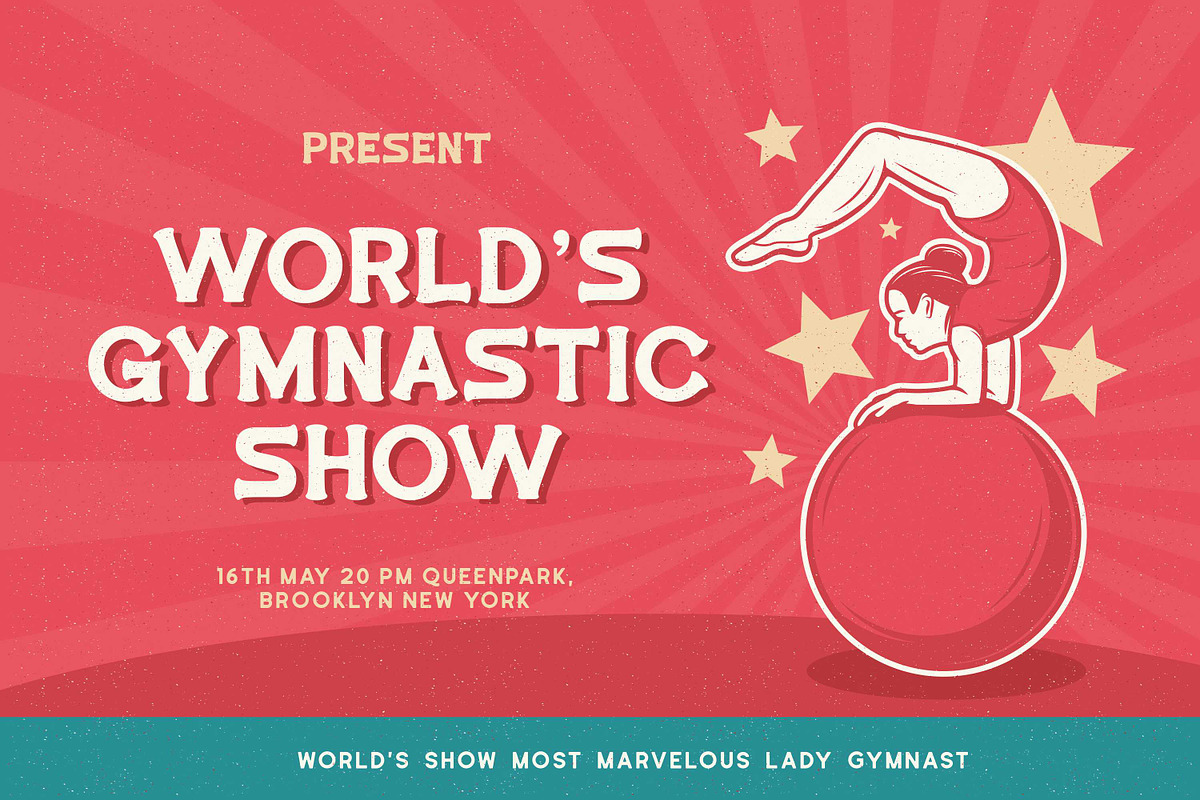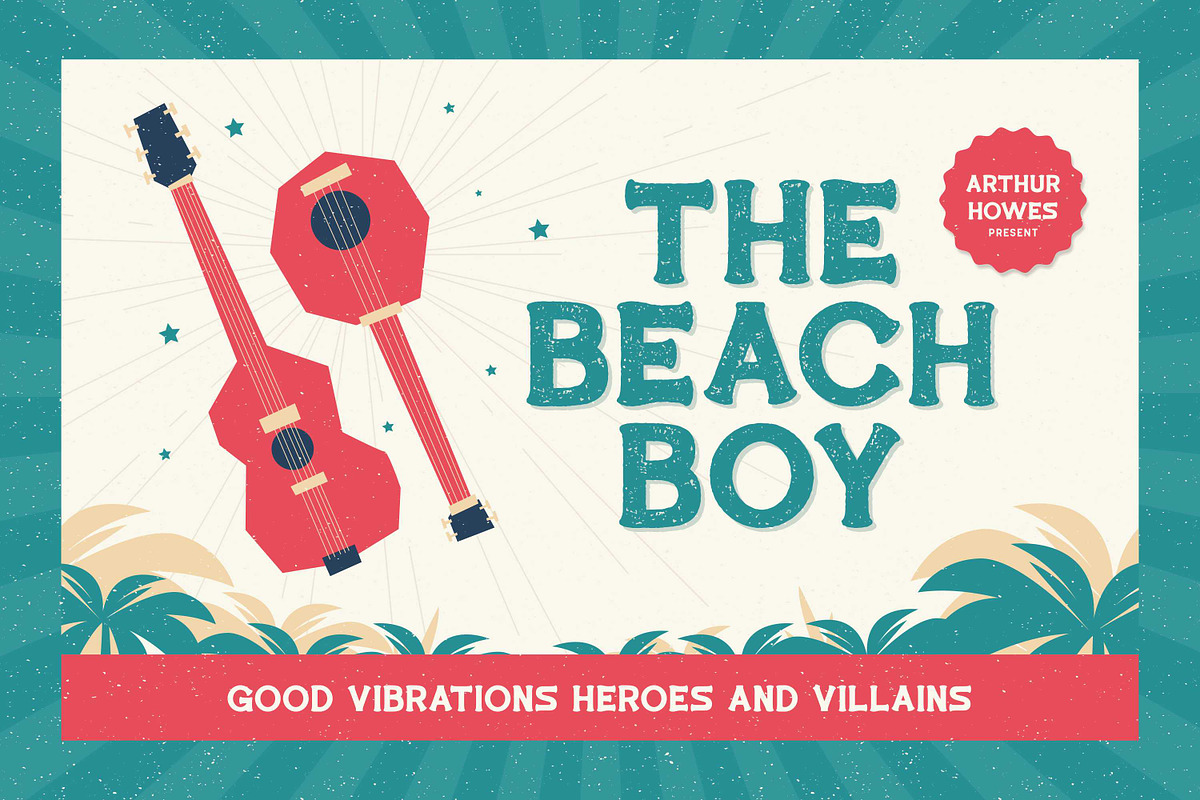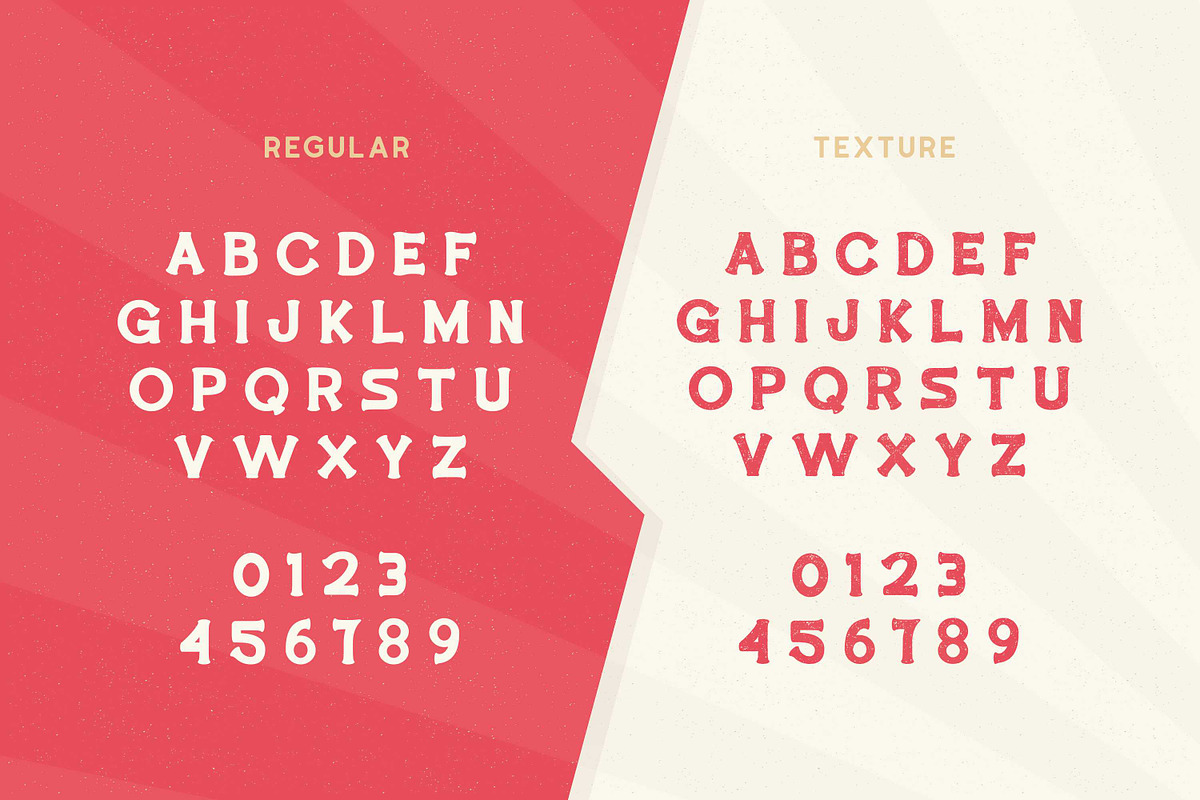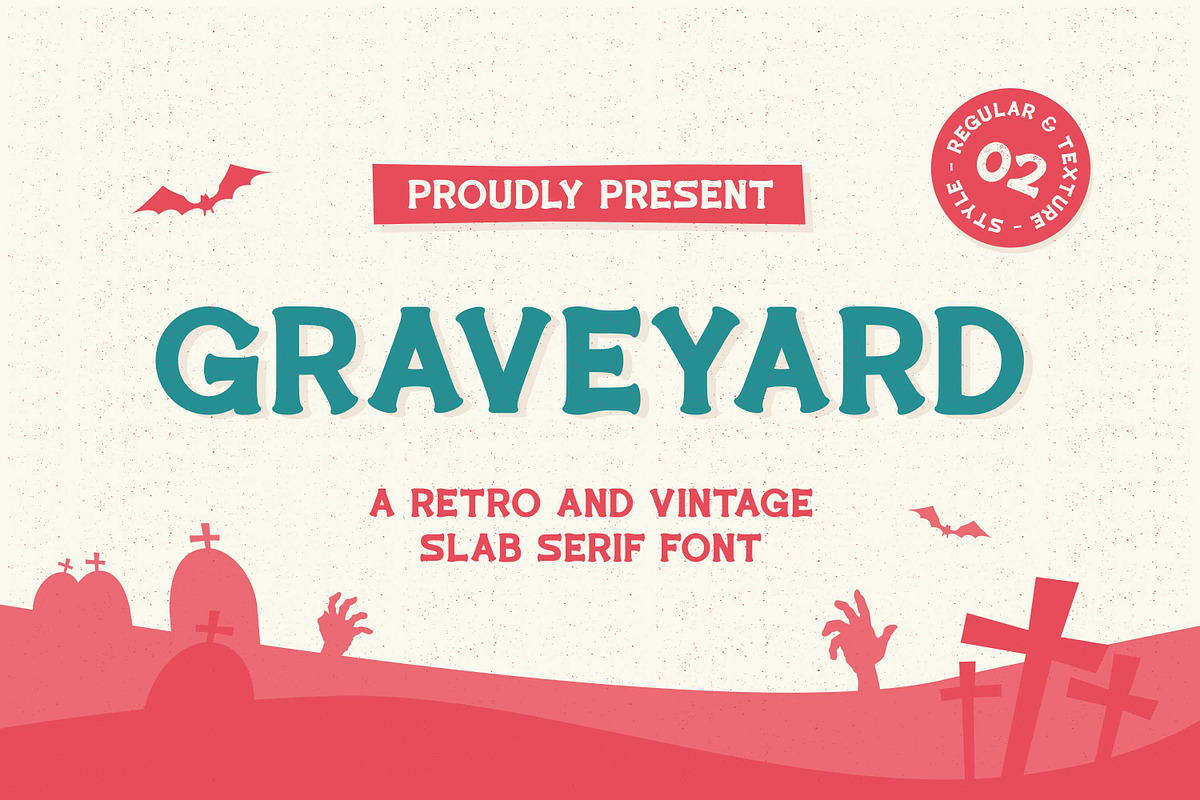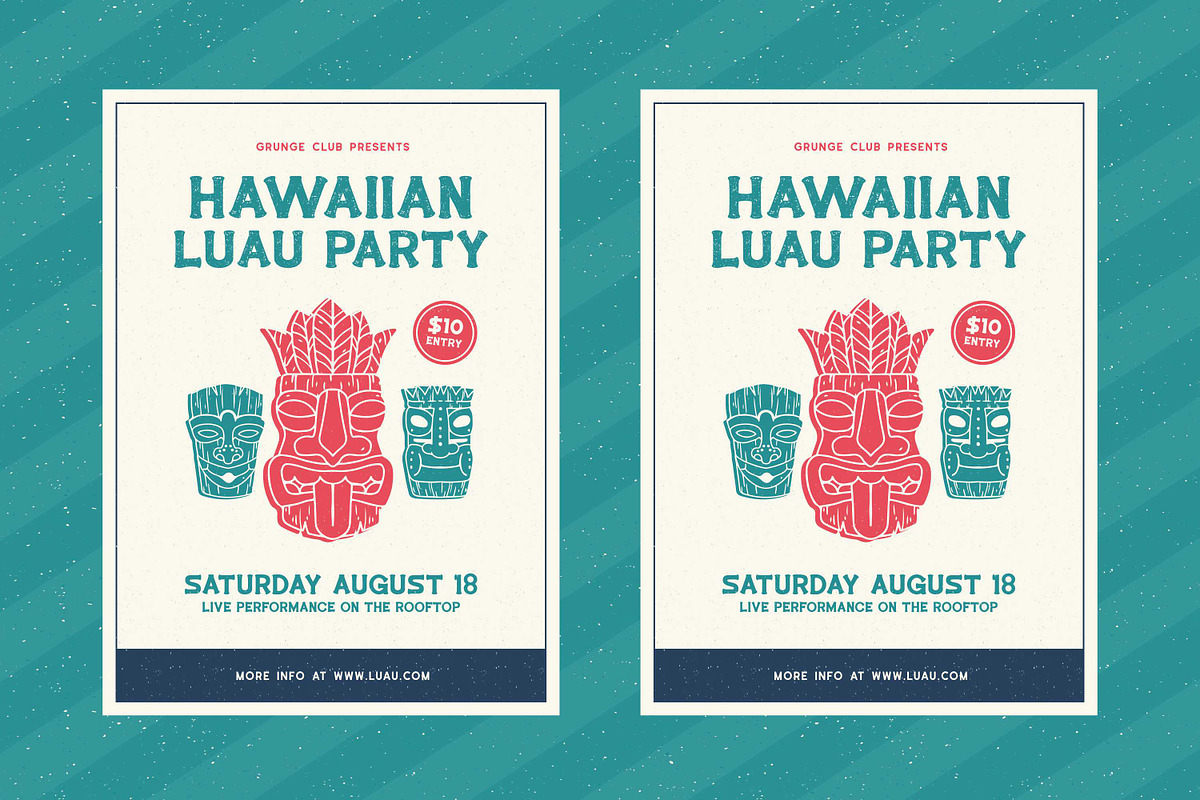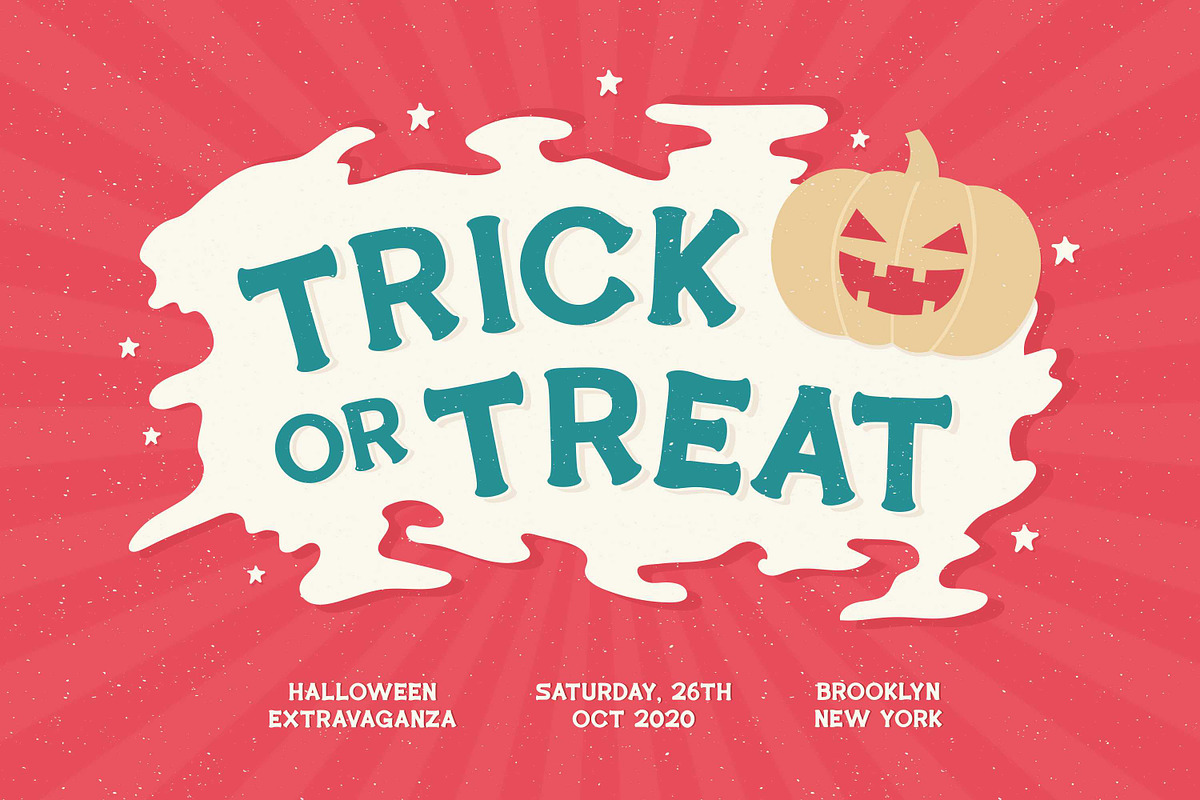
Graveyard - Vintage Slab Font
Graveyard is a Vintage Slab font available in regular and texture, it has styles a spooky, grungy, unique, covering a wide range of project types such as poster design, book covers, prints, headlines, magazines, packaging, branding. It will turn any design project into a true standout!
Regular and texture style
Numerals & punctuation